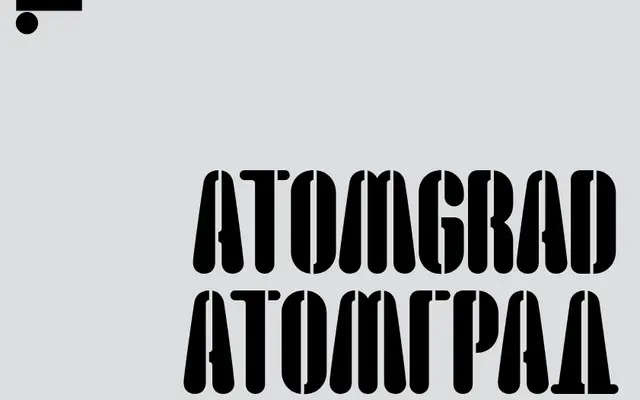
LL Atomgrad
Lineto · Stephan Müller, Yevgeniy Anfalov, Luca Pellegrini · 1998
LL Atomgrad specimen from Lineto
A stencil typeface rooted in four Cyrillic letters photographed on a Chernobyl basement wall, expanded across Latin and Cyrillic by three designers over two decades.
Originally released as FF Chernobyl in 1998, Stephan Müller built the Latin alphabet from a minimal Cyrillic sample stencilled on a wall at the Chernobyl power plant, photographed by Igor Kostin in 1991. In 2020, Kyiv-born designer Yevgeniy Anfalov proposed a full Cyrillic counterpart, effectively returning the letters to their source, while redrawing the Latin in the process. Luca Pellegrini completed the project with a formal revision and extended character set, with Viktoriya Grabowska contributing refinements to the Cyrillic.
A stencil typeface derived from Soviet-era industrial lettering, with forms built around the structural constraints and visual character of hand-cut stencils. Classified as display due to its highly specific, atmospheric origins and visual weight.